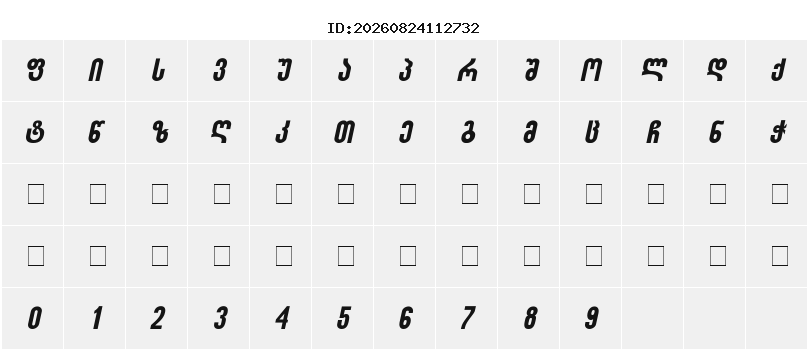
Sakatrvelo-ITV Preview
• Font Name: Sakatrvelo-ITV
• Font ID: FontMonger:Sakatrvelo-ITV Italic
• Full Font Name: Sakatrvelo-ITV Italic
• PostScript Name: Sakatrvelo-ITVItalic
• Character Count: 70
About Sakatrvelo-ITV.ttf
Sakatrvelo-ITV.ttf is a modern, elegant sans-serif font designed for ultimate readability and visual harmony. Perfect for branding, headlines, web design, and print materials.